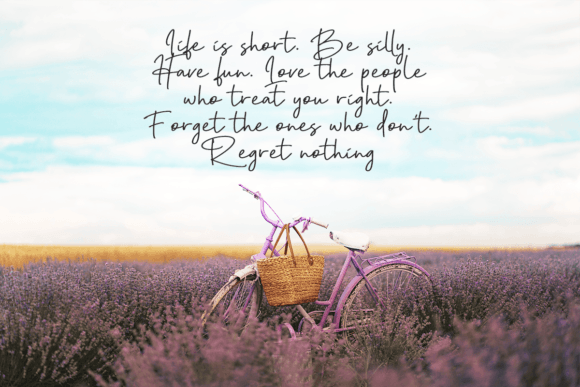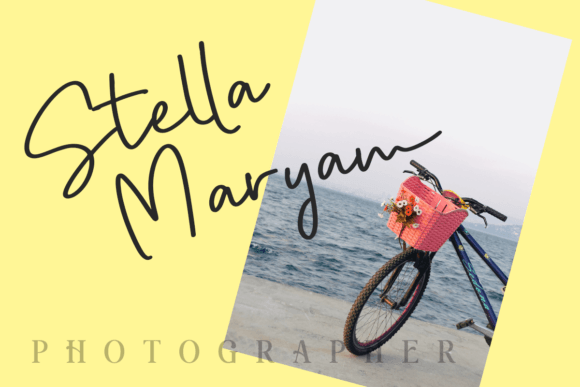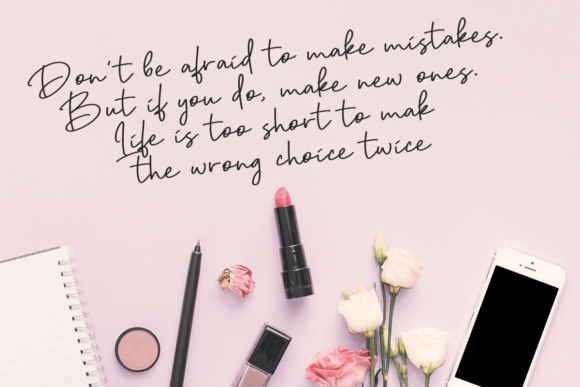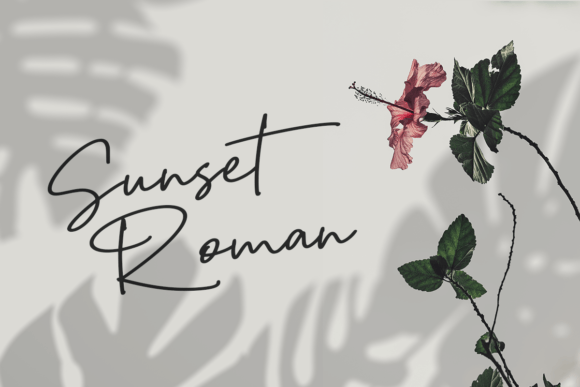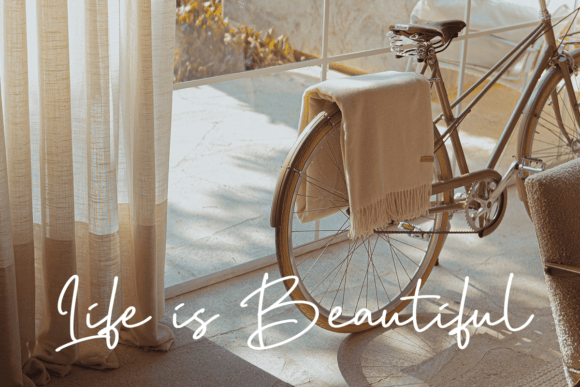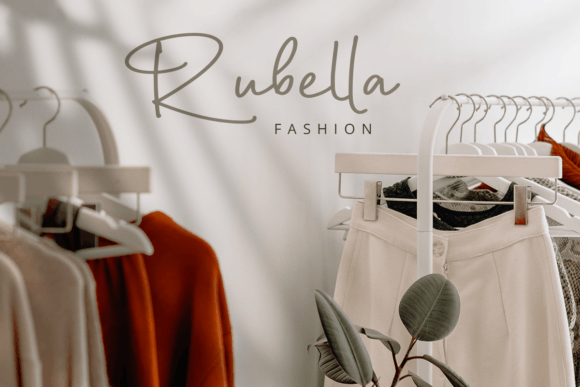
Introduction to Smart Hallen Font
Have you ever stared at a blank page, trying to come up with the perfect design for a client’s project or your own creative venture? The struggle is real, but with the right tools, you can bring your ideas to life in a snap. That’s where the Smart Hallen Font comes in – a game-changing addition to any designer’s arsenal.
This high-quality, free download font is a treasure trove of creative possibilities, with its fresh and impactful handwritten style making it perfect for a wide range of projects, from business cards to wedding invitations, and even T-shirt design. With its transparent background, you can easily layer it over any design element, giving you complete control over the look and feel of your project.
Key Features of Smart Hallen Font
- High-quality, professional font suitable for creative projects
- Transparent background, allowing for easy customization and layering
- Unique, modern design perfect for creative projects requiring a clean and sophisticated look
Honest Review: Smart Hallen Font
As a designer, I’m always on the lookout for high-quality fonts to elevate my creative projects. The Smart Hallen Font caught my attention, and I was excited to give it a try.
One of the things I like about this font is its clean and modern aesthetic. It’s perfect for designing sleek and sophisticated visuals. ✨ I also appreciate the transparent background, which makes it easy to use in a variety of design scenarios.
Here are some of the features that I think make the Smart Hallen Font a valuable design resource:
- Perfect for designing logos, brochures, and other marketing materials
However, I do have a few limitations to note: ⚠️ The font is limited in its font styles, and it may not be suitable for more complex designs. Additionally, the free version has some watermarks, which may not be ideal for commercial use.
Overall, I think the Smart Hallen Font is a solid choice for designers who are looking for a clean and modern font. While it may have some limitations, it’s a great resource to have in your design toolkit.
Tips for Getting the Most Out of Smart Hallen Font
Common Use Cases for Smart Hallen Font
Smart Hallen Font is ideal for various design applications, including logos, brochures, business cards, and social media graphics. Its transparent background and high-quality design make it a popular choice for creative projects. Use it to add a professional touch to your designs and make a lasting impression on your audience.